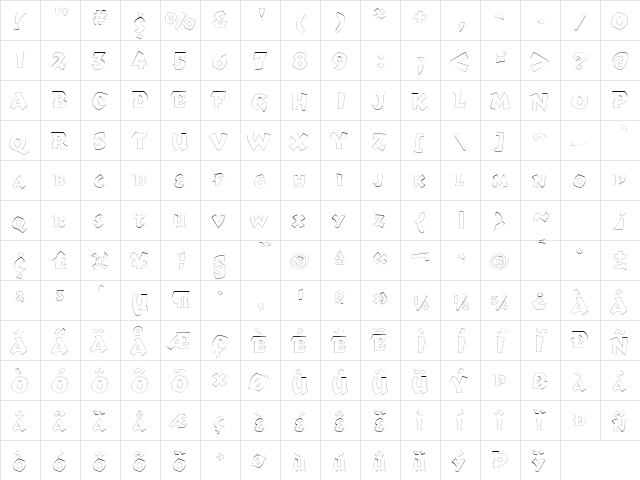
RomulusOutline Regular
Design Context for RomulusOutline Typeface
RomulusOutline is built around its visual character rather than neutral utility — its distinctive forms are designed to make an impression at display sizes.
Font Pairing: Pair with a clean neutral sans-serif for body copy to let RomulusOutline's character lead without overwhelming the composition.
Pro Tip: Treat RomulusOutline as the centrepiece of your typographic hierarchy. One strong heading set in a decorative face can carry an entire layout.